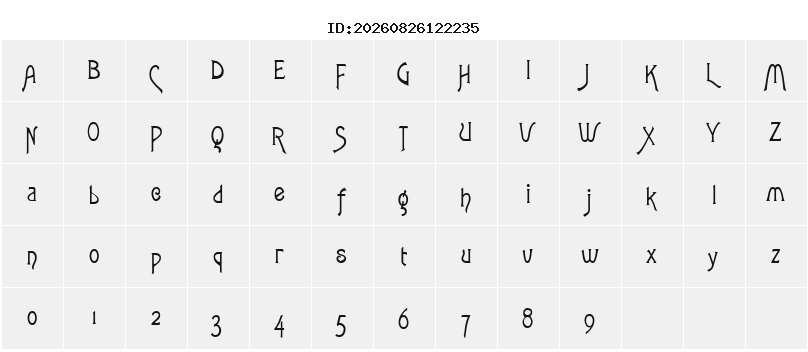
Warning 1 Preview
• Font Name: Warning 1
• Font ID: Fletcher-Gothic Regular
• Full Font Name: Warning 1
• PostScript Name: Fletcher-Gothic
About Warning 1.ttf
Warning 1.ttf is a modern, elegant sans-serif font designed for ultimate readability and visual harmony. Perfect for branding, headlines, web design, and print materials.